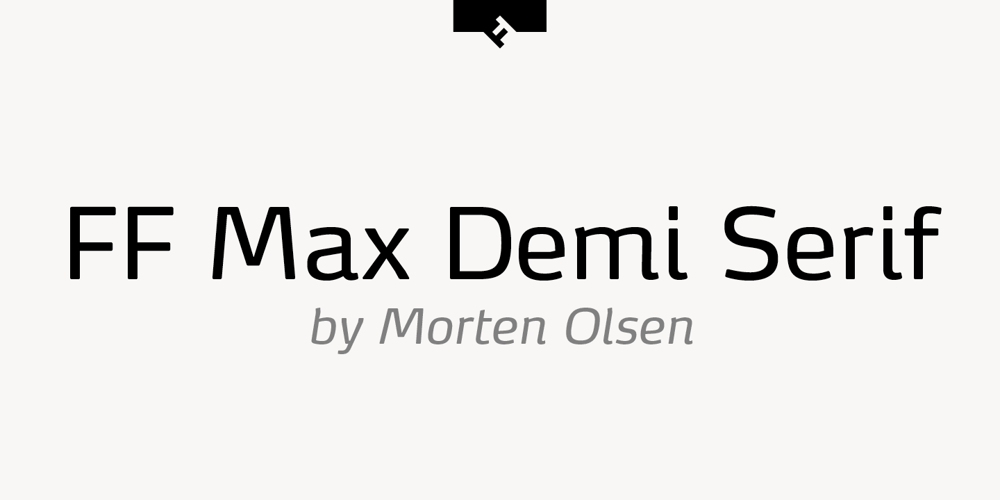
FF Max Demi Serif Font Family was designed by Morten Rostgaard Olsen and published by FontFont. FF Max Demi Serif contains 14 styles and family package options. Danish type designer Morten Olsen created this serif FontFont between 2003 and 2004. The family has 14 weights, ranging from Light to Black (including italics) and is ideally suited for advertising and packaging, editorial and publishing, logo, branding and creative industries, software and gaming as well as sports. FF Max Demi Serif provides advanced typographical support with features such as ligatures, alternate characters, case-sensitive forms, fractions, super- and subscript characters, and stylistic alternates. It comes with a complete range of figure set options – oldstyle and lining figures, each in tabular and proportional widths. This FontFont is a member of the FF Max super family, which also includes FF Max.